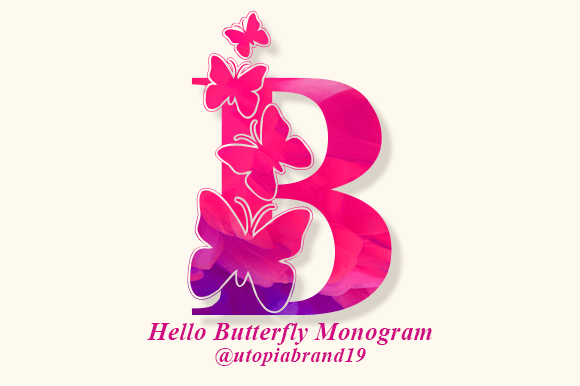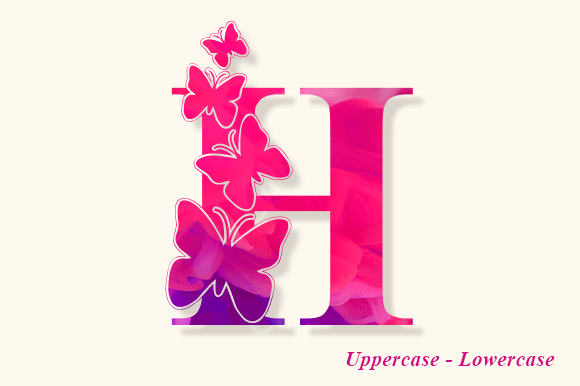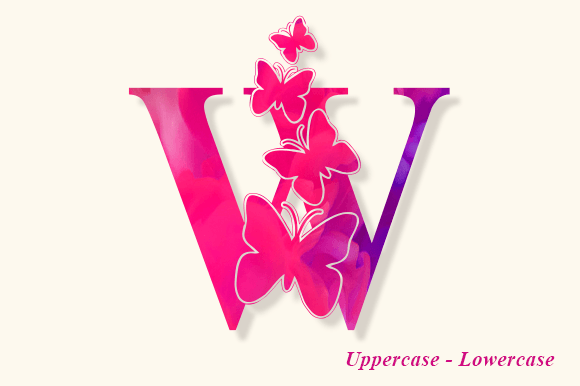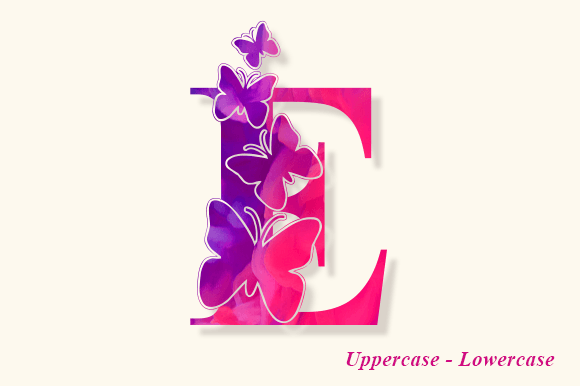
Hello Butterfly Monogram Font
About the Hello Butterfly Monogram Font
Add a touch of class to your work with the Hello Butterfly Monogram Font, a truly exceptional typeface. Beauty Butterfly Monogram is an elegant decorative font, featuring lovely ornaments. Fall in love with its authentic feel and use it to create gorgeous wedding invitations, beautiful stationary art, eye-catching social media posts, and cute greeting cards.
Its elegant, decorative style makes it ideal for branding projects requiring a touch of vintage charm, particularly logos, short headlines, and packaging for luxury goods or boutique products. It also excels in stationery design and social media graphics where visual impact is key. However, its ornate nature makes it unsuitable for body text or UI elements; readability suffers at smaller sizes.
Consider pairing Hello Butterfly Monogram with a clean sans-serif like Lato for a modern contrast, or a classic serif like Garamond for a more traditional feel. A simple, geometric sans-serif would also create a striking juxtaposition, allowing the font’s ornate details to shine.
The overall personality is sophisticated and romantic, lending itself to brands focused on beauty, fashion, or the arts. Avoid using it where a clean, minimalist aesthetic is paramount.
Hello Butterfly Monogram Font Example